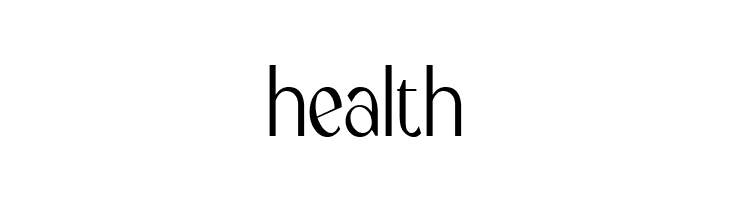
A modern, elegant font with clean lines and a light, sophisticated feel.
A modern, elegant typeface with clean lines and balanced proportions.
A modern, elegant font with clean lines and a slightly condensed style.